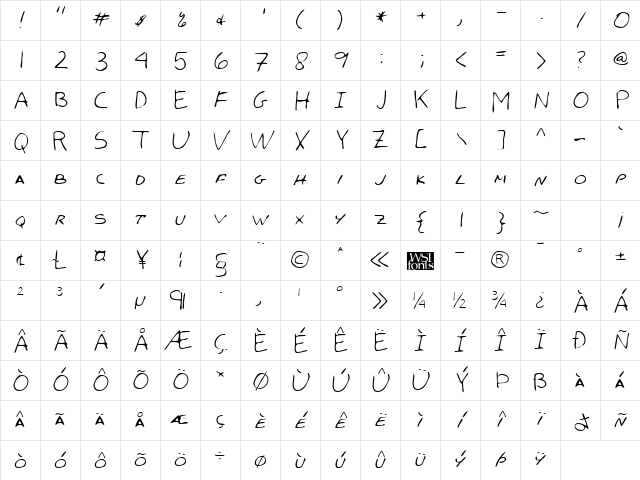
ChasesHand Regular Free Font
ChasesHand Regular
ChasesHand Family
ChasesHand Regular
Design Context for ChasesHand
ChasesHand flows with the natural rhythm of handwritten lettering, making it ideal for designs that call for warmth and personal expression.
Font Pairing: Combine ChasesHand with a simple geometric sans for maximum contrast - the tension between flowing curves and clean structure is a classic typographic pairing.
Pro Tip: Use ChasesHand for short runs of text - names, titles, or taglines. Extended body copy in script faces tires the eye quickly.